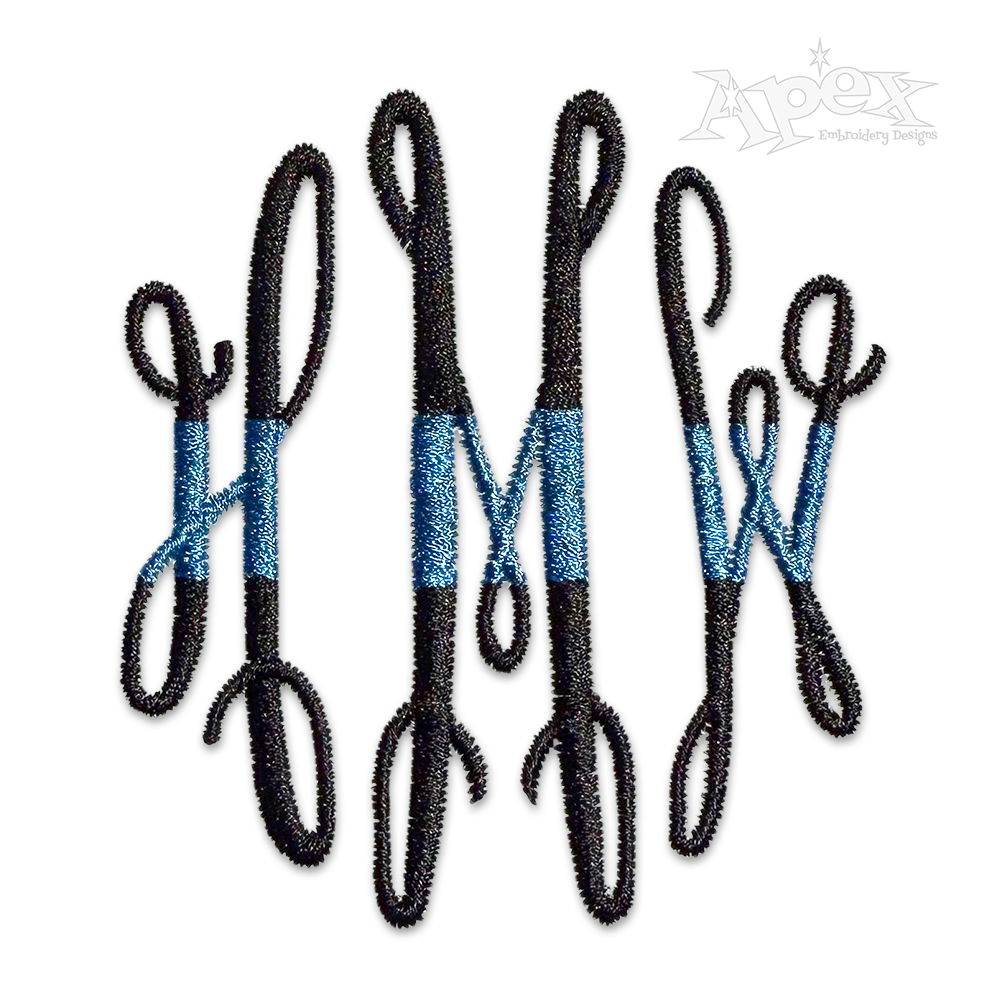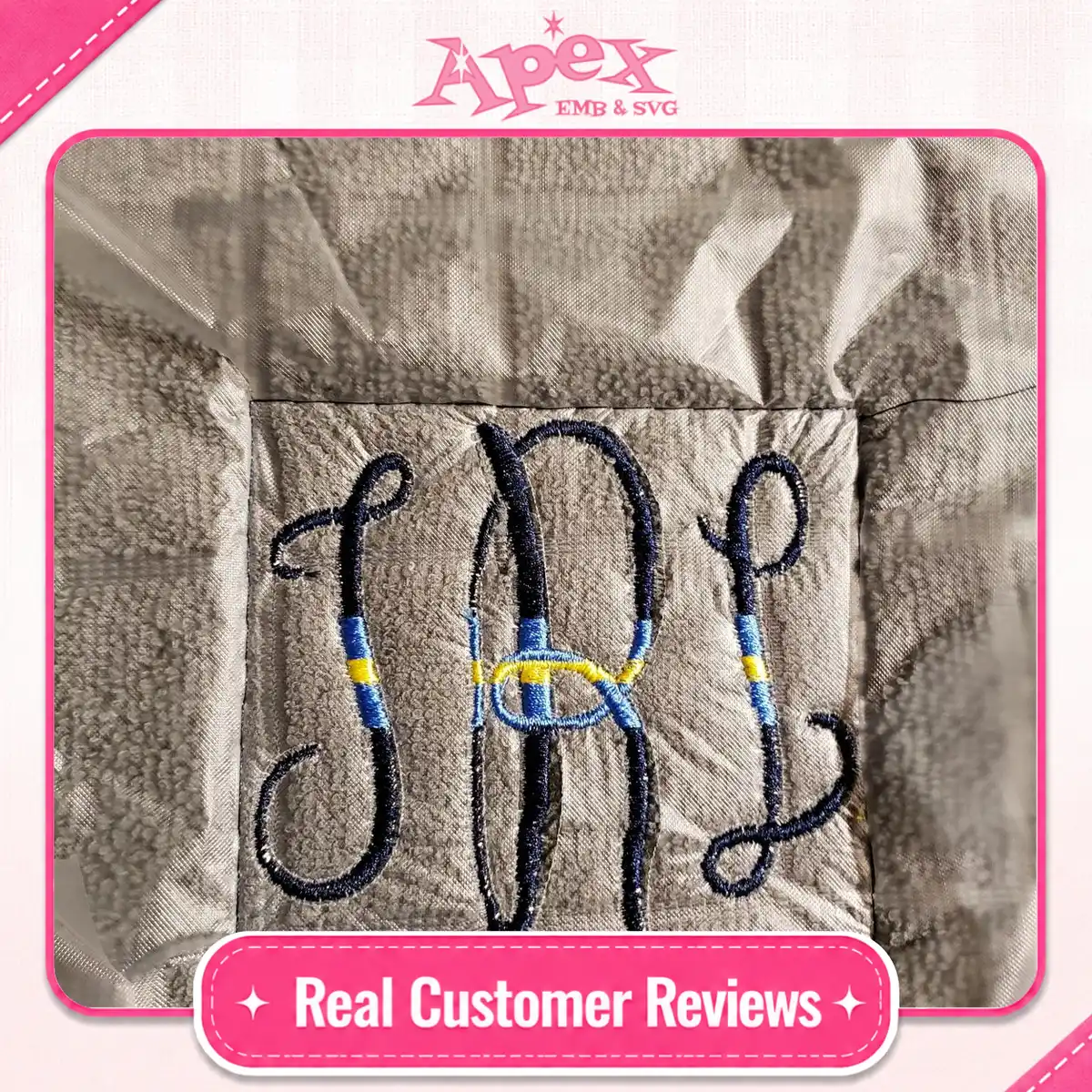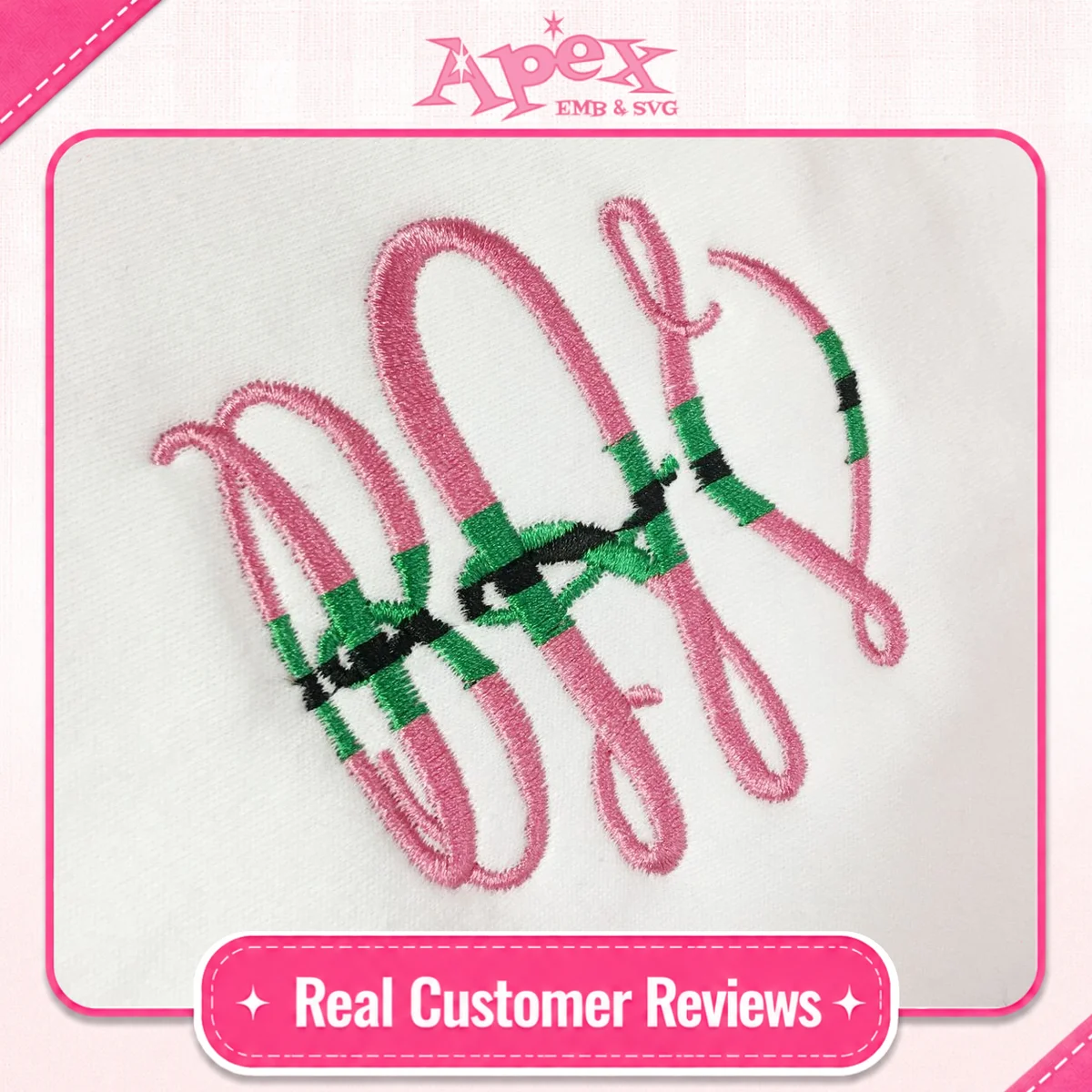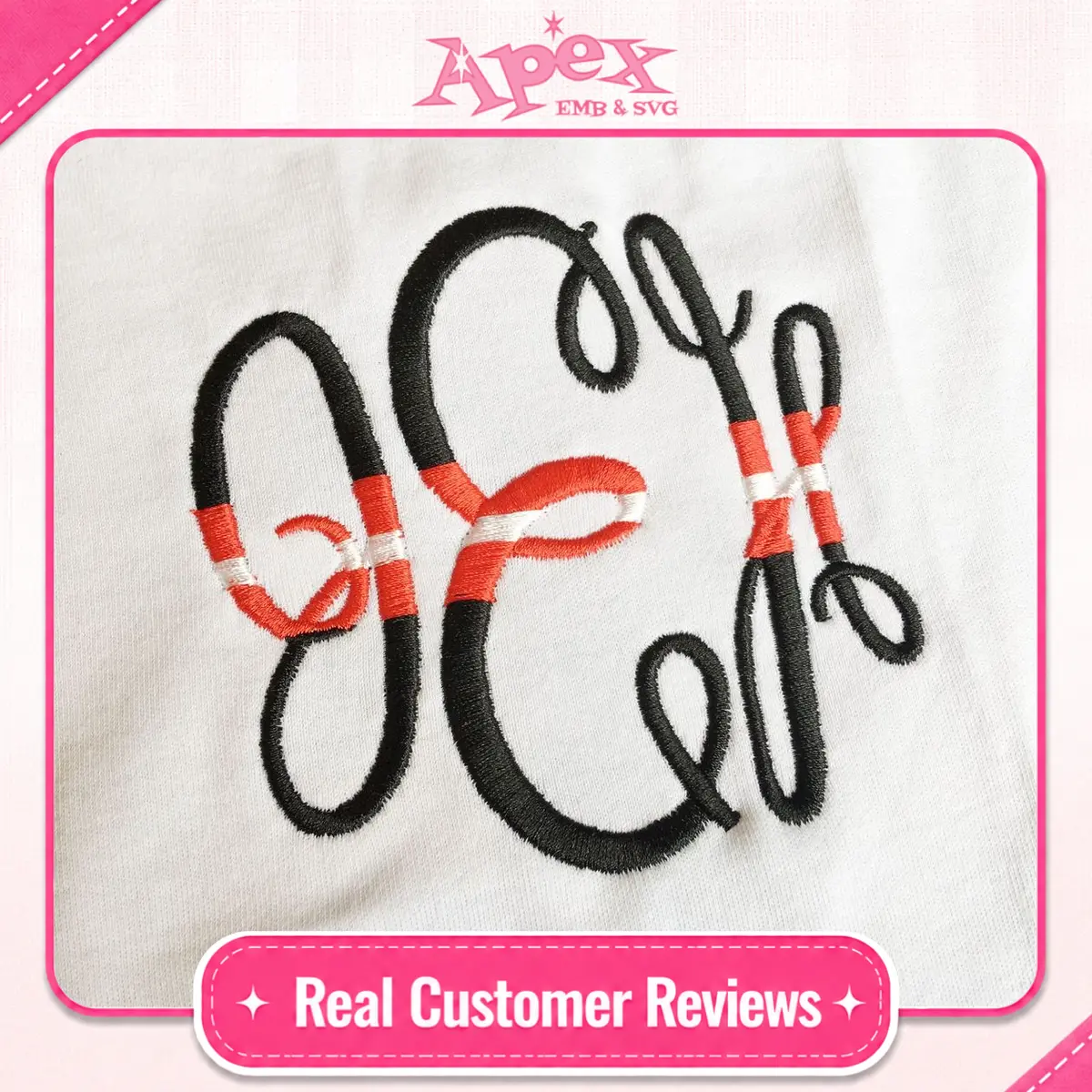
Nurse Royal Circle Monogram Embroidery Font
In the quiet hum of our digitizing studio, we set out to honor the dedicated hands and compassionate hearts of healthcare heroes with a design of true distinction. The Nurse Royal Circle Monogram Embroidery Font transforms standard medical workwear into a regal statement of pride, service, and skill. Envisioned as a majestic crest, this circular monogram frames personal initials within an arching, perfectly balanced silhouette that commands respect while celebrating individuality. Every curve and column is digitized to catch the light with rich satin luster, turning utilitarian clinical gear into a bespoke keepsake worthy of the noble calling it represents.
This monogram collection is engineered with precision pull compensation and variable density scaling across three versatile sizes:
Nurse Royal Circle Monogram Craft & Letterform Details
Digitizing a true circular monogram requires far more than simply bending type along an arc?it demands an artisan?s command of optical geometry. Each letter within the Nurse Royal Circle Monogram is meticulously shaped so that the outer curves marry seamlessly to form a continuous, cohesive outer sphere, while the interior borders remain crisp, legible, and uncrowded. The central initial takes prominence with royal stature, embraced by flanking side letters that flow naturally into the circular frame.
Beneath the surface, we have built a multi-layered underlay structure specifically calibrated for fabrics prone to movement, such as stretch performance blends, textured pique, and microfleece. The satin stitch paths are programmed with dynamic travel directions that distribute tension evenly, preventing fabric puckering and eliminating outline distortion. Each turn of the thread glides effortlessly through the needle, producing a dense, glass-smooth finish designed to retain its regal brilliance through countless industrial washings and demanding hospital shifts.